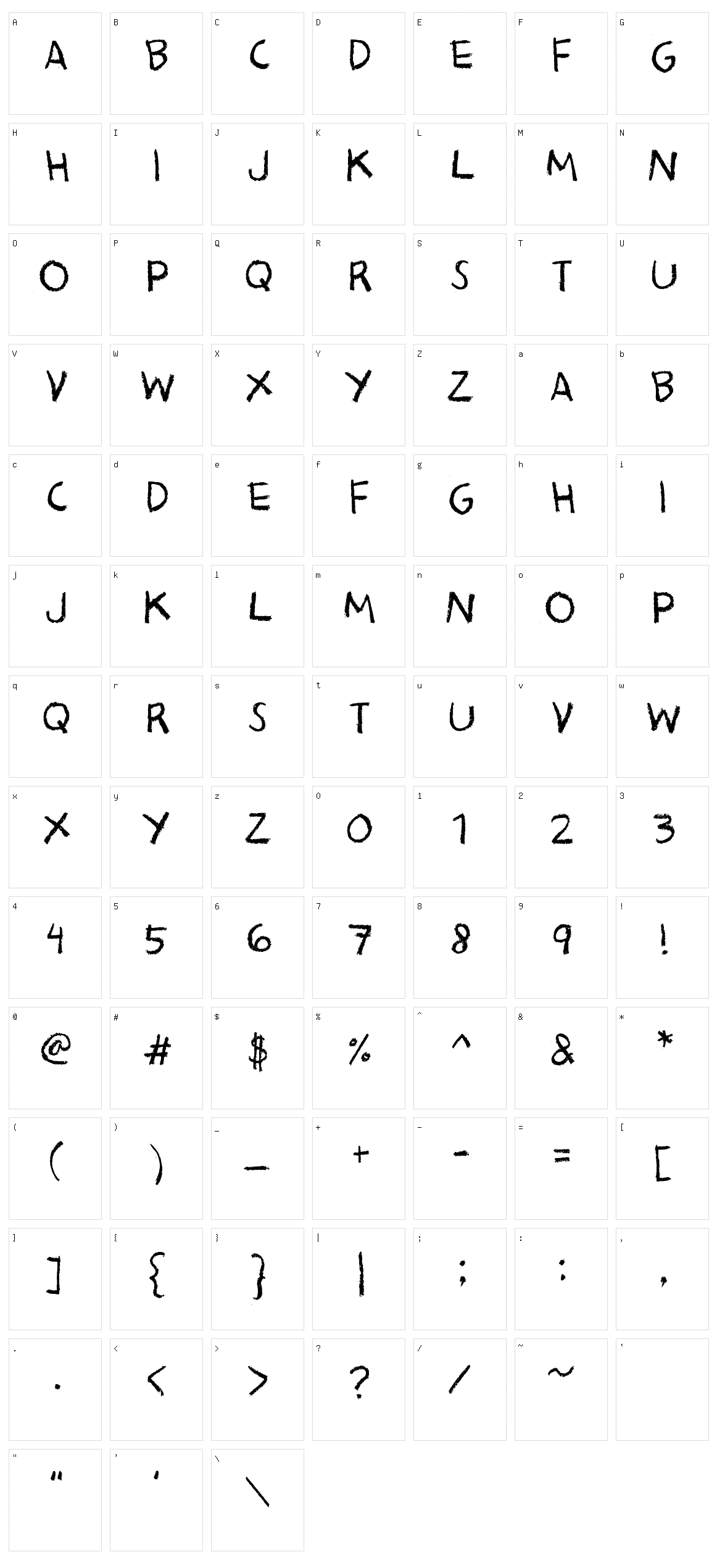
The free font Bacon Kingdom is carefully designed by Denne, showcasing a thoughtful balance of creativity and usability and falls under the Script font style. When you download the ZIP file, it contains only 625.21 KB of font files, making it lightweight and quick to download. Please review the license details below to understand permitted usage and distribution rights. If license information is not available, we recommend using this font for personal projects only or contacting the author directly for commercial usage permissions.